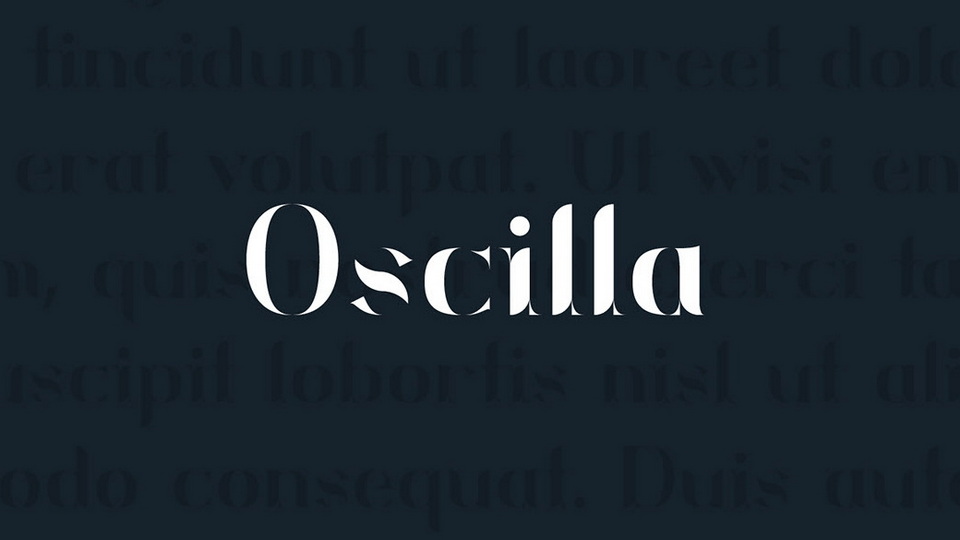
Oscilla Font
Oscilla is a modern sans serif font with smooth curves and high contrast. With its unique appearance the font is perfect for editorial, advertising, branding, posters, or typography projects.
Designed by: Ryan Lin